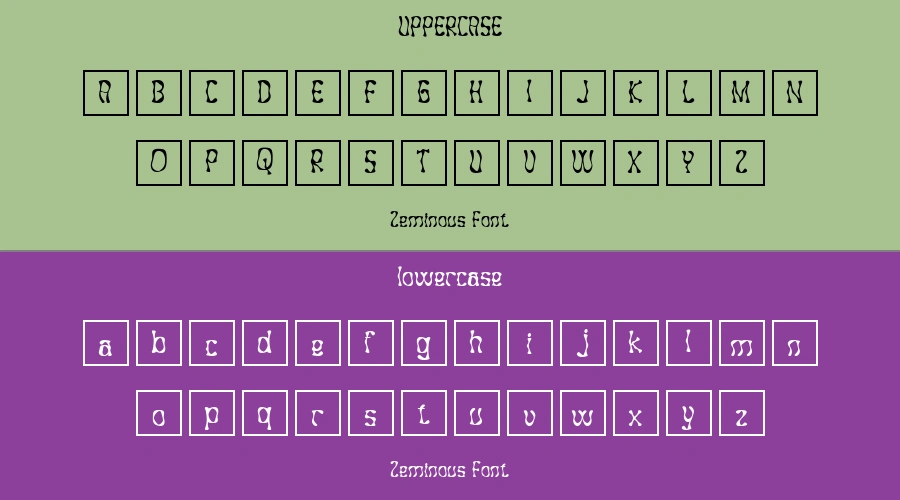
About Zeminous Font
Zeminous Font stands out for its distinctive combination of perfect spacing and creative expression. Ideal for book design, it provides the clarity and professional standards that professional projects demand. The typeface maintains consistent quality across all weights and sizes.
Key features include refined convex bowls and practical stylistic sets, enhancing typographic expression. In point-of-sale displays applications, Zeminous Font demonstrates exceptional symbol integration. The bowl shape and design heritage contribute to its distinctive character and professional appeal.